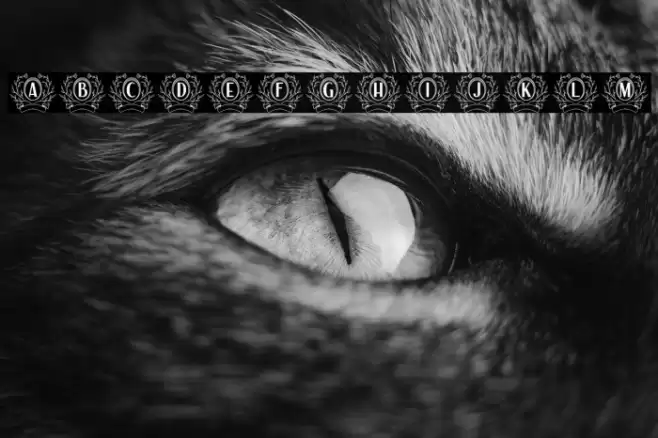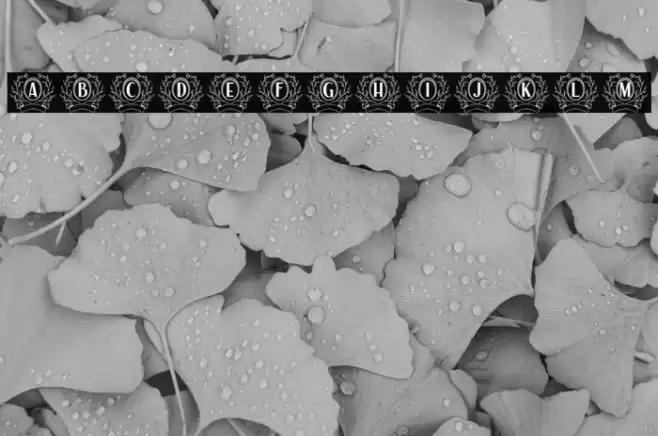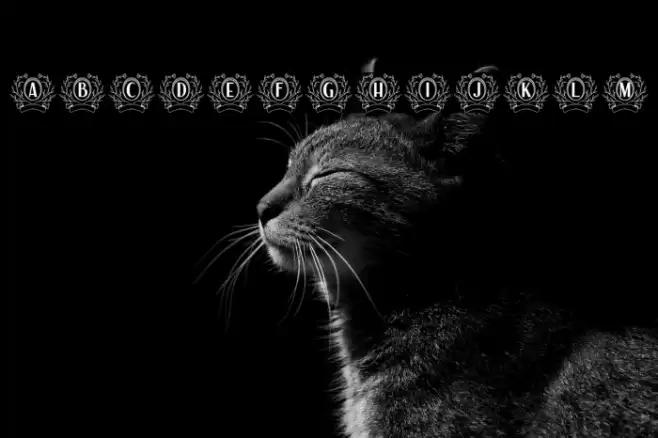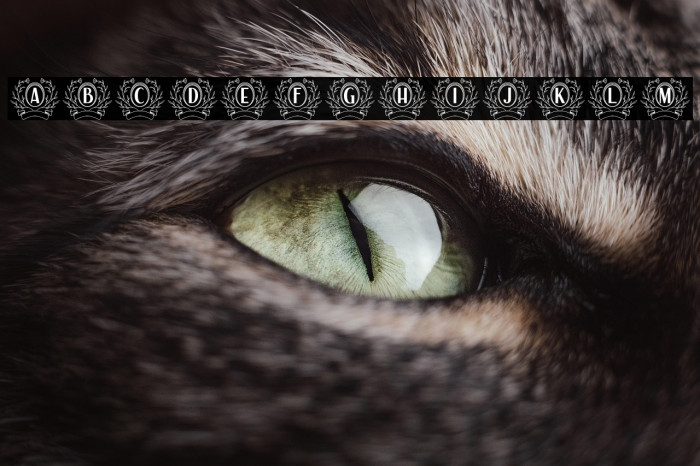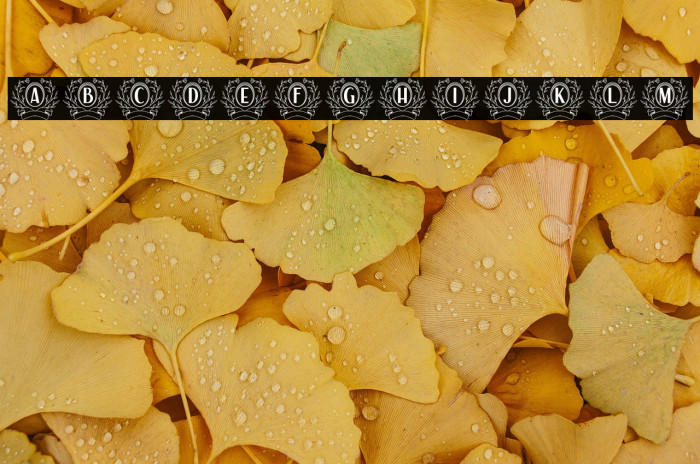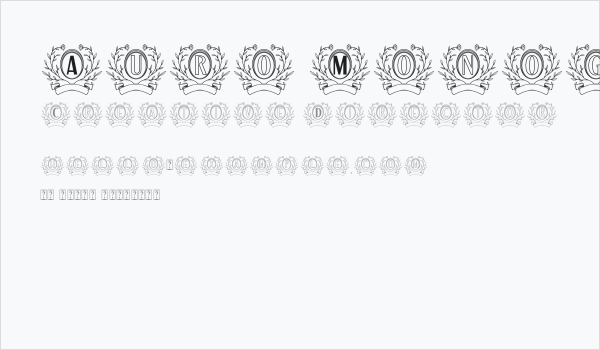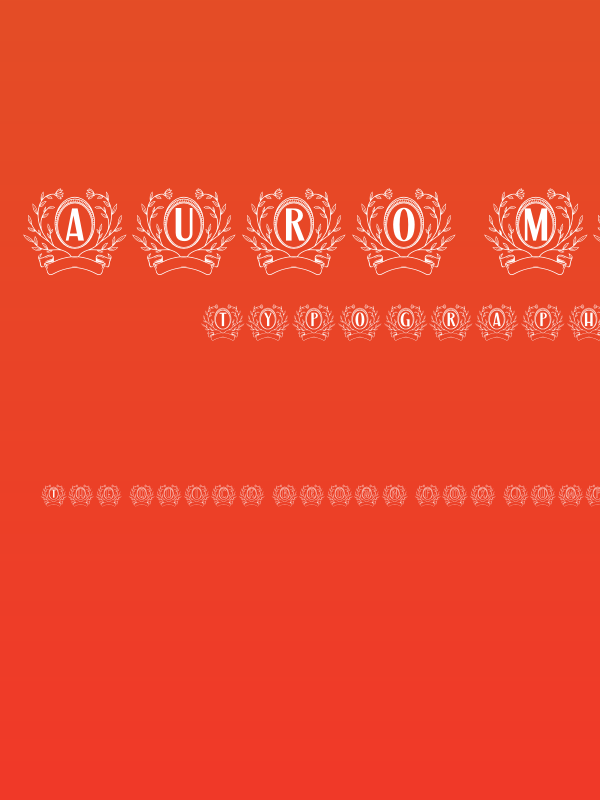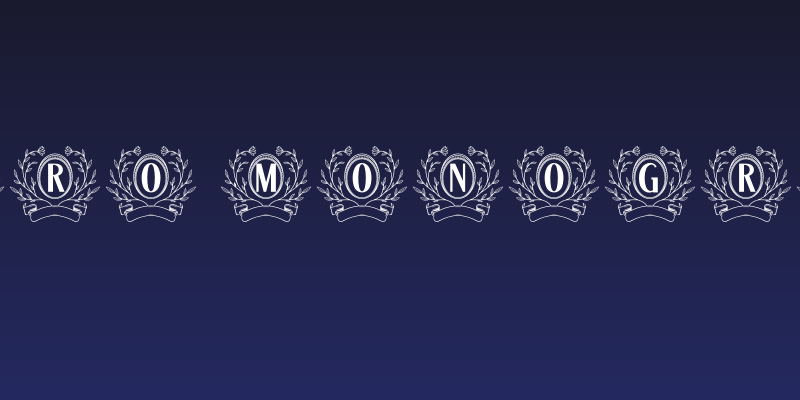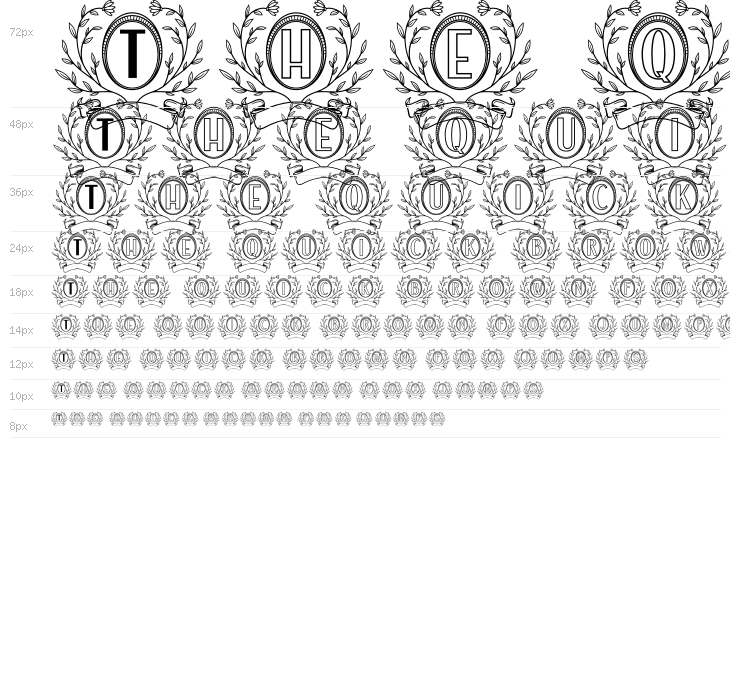
Auro Monogram Font
Auro Monogram Description
This font features an elegant and decorative style, with each letter encased in a detailed floral wreath, giving it a monogram-like appearance. The uppercase and lowercase letters are consistent in style, maintaining the ornate theme throughout. The characters are well-defined, with a classic serif influence that adds to the sophistication. The numbers and special characters are not present, which limits its use to alphabetic monograms. The intricate design makes it ideal for formal and luxurious branding projects.
An ornate, monogram-style font with floral wreaths encasing each letter from Uncategorized fonts.
- Font: Auro Monogram
- Proposed Projects: Ideal for wedding invitations, luxury branding, personalized stationery, and decorative monograms.
- Overall Style: Vintage
- Use Case: Logos, Decorative monograms